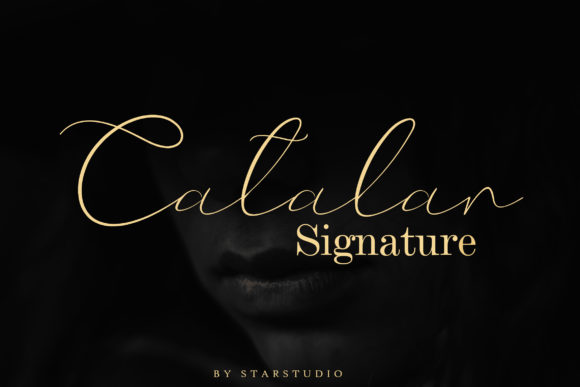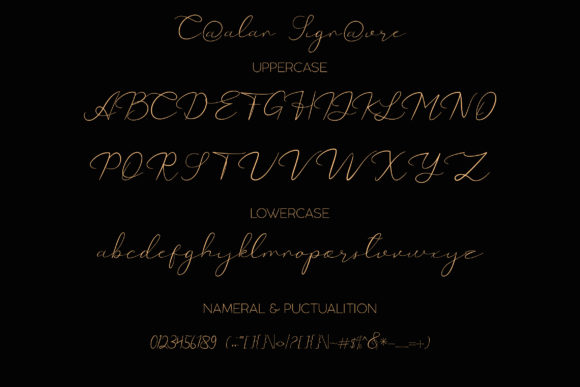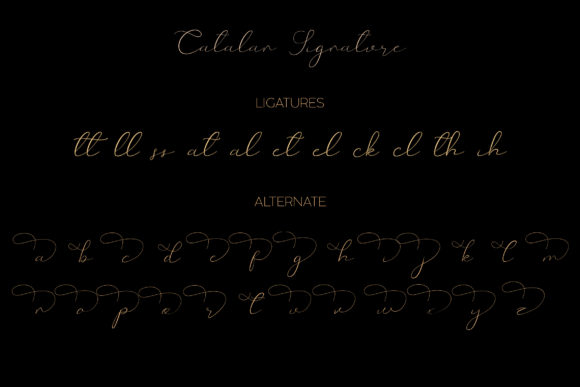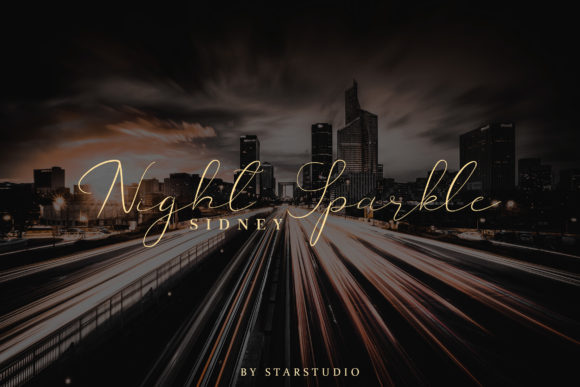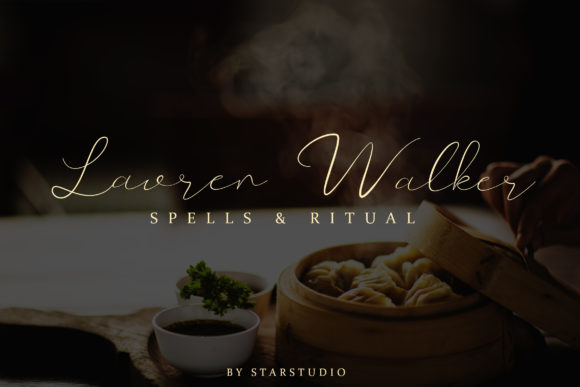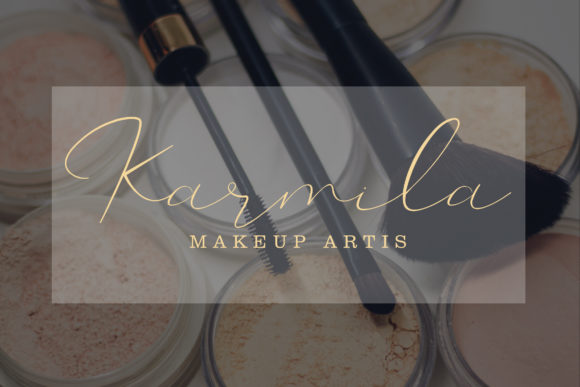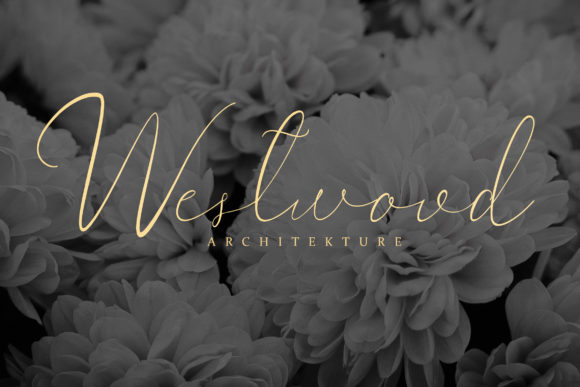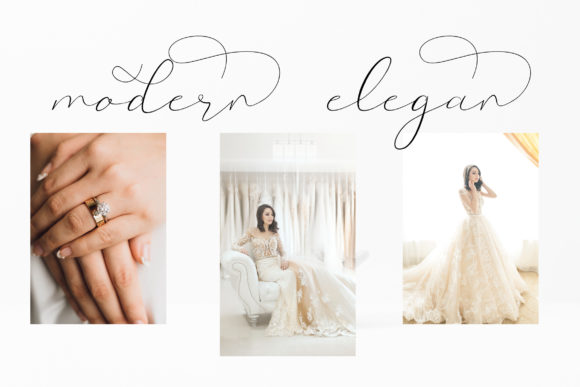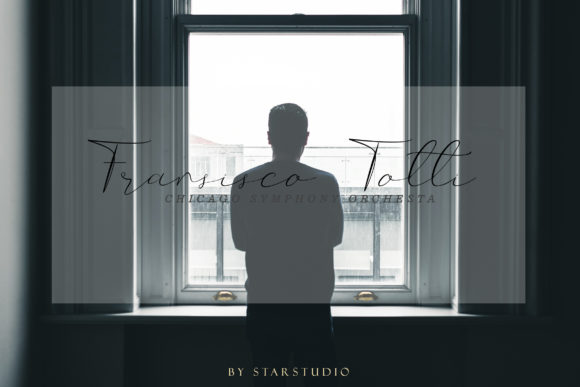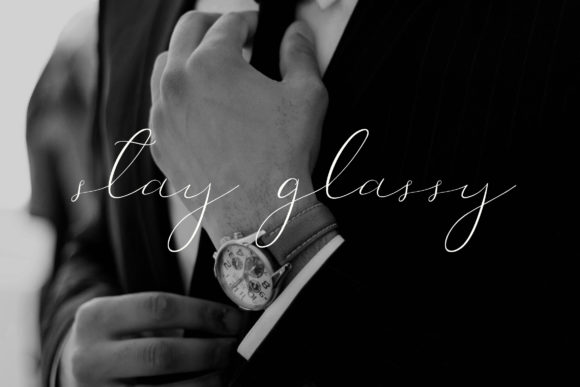
Catalan Signature Font
About Catalan Signature Font
The Catalan Signature is a super cool handwritten font which includes an additional sexy style. It was made to look as beautiful as possible while maintaining a natural feel.